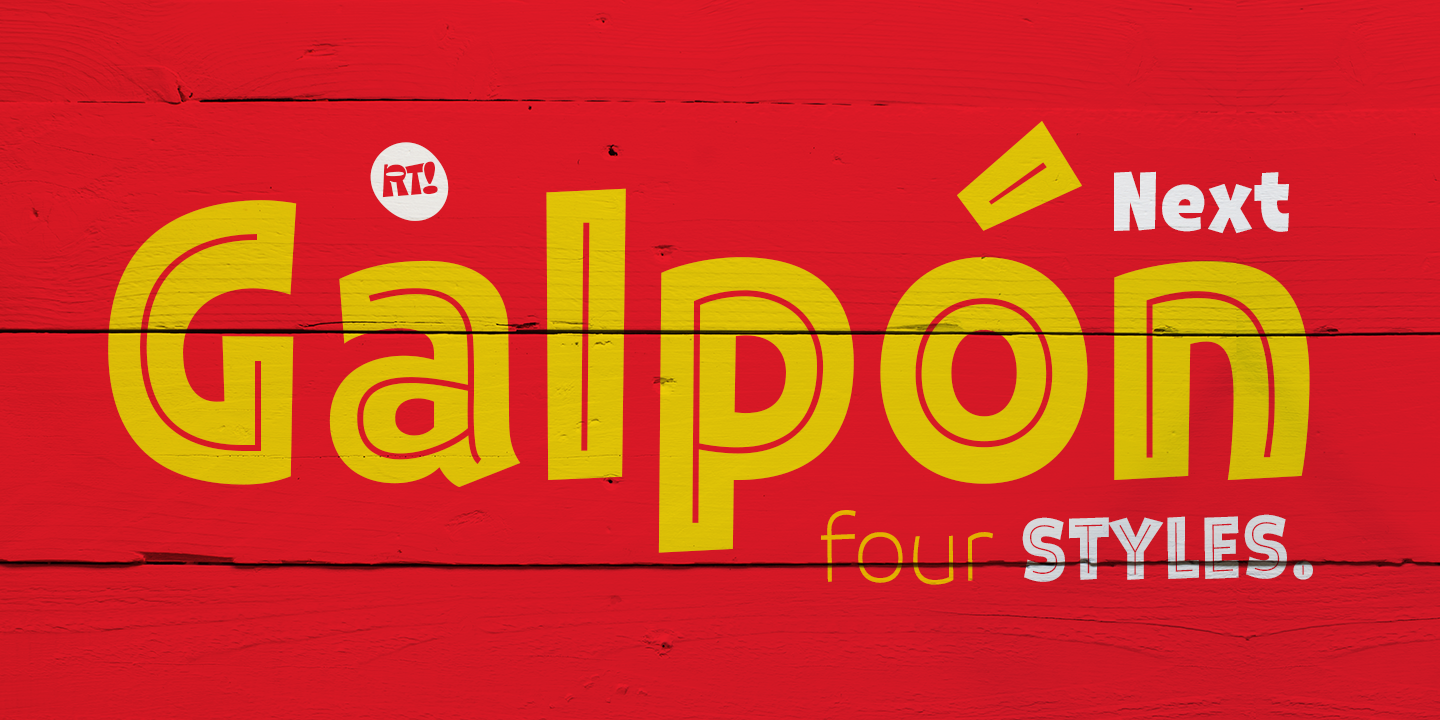
Galpon Next
Designed by Rodrigo Araya Salas and Bruno Jara, Galpon Next is a comic and display sans font family. This typeface has four styles and was published by Rodrigo Typo.
The “Galpon Next” typeface is a gestural and dynamic font specially designed for informal or children’s texts. The idea behind this typeface is to capture the energy and spontaneity of handwriting, creating a sense of joy and fun in the designs.